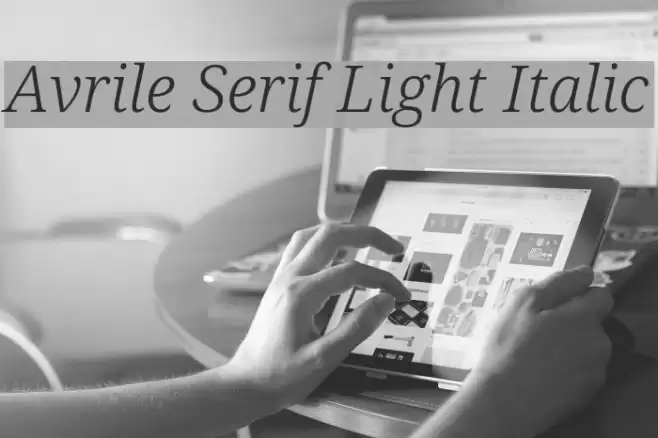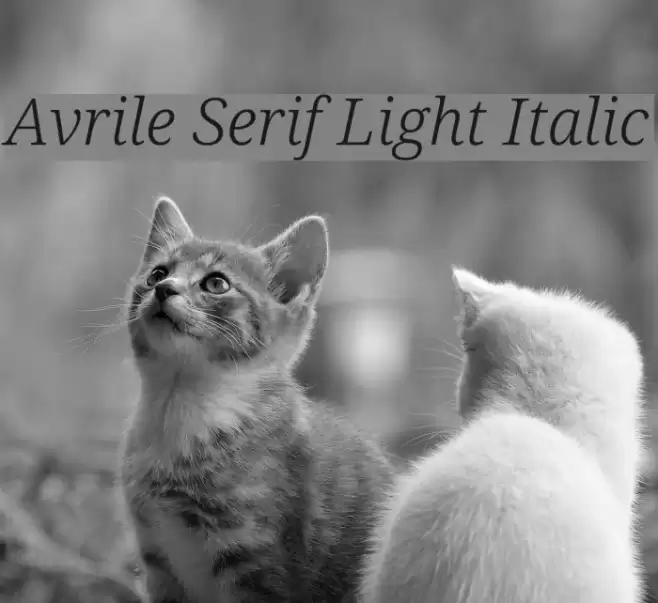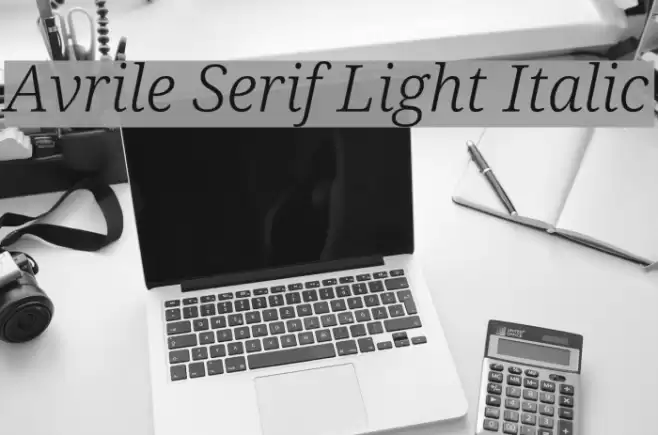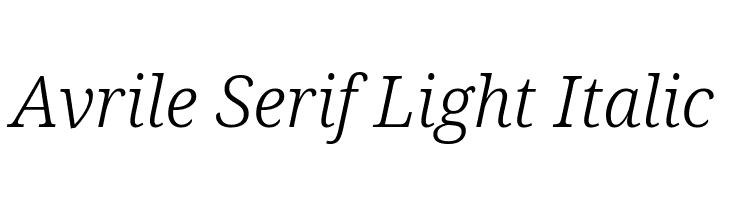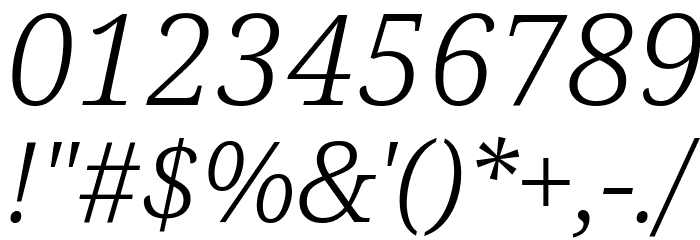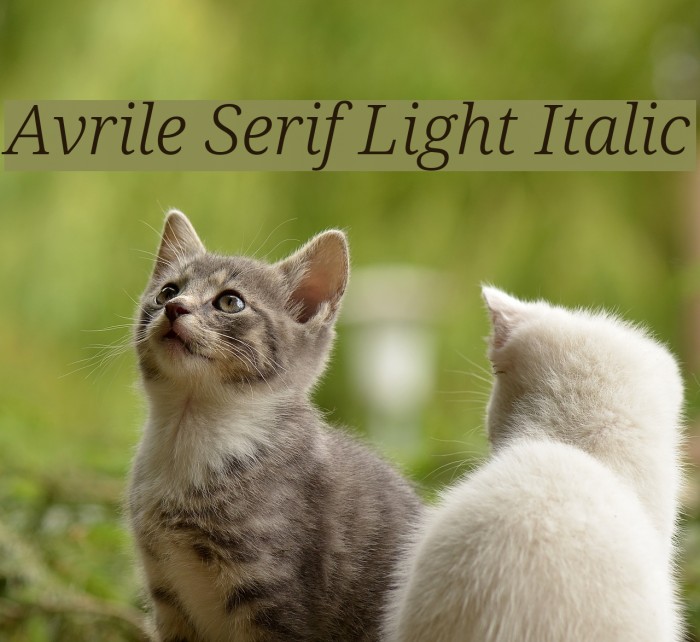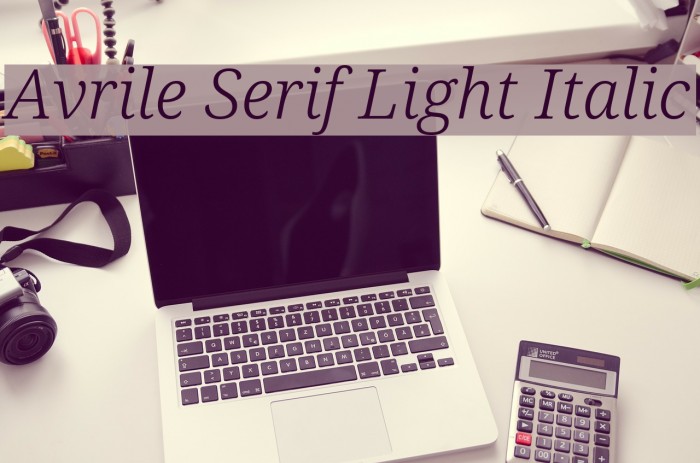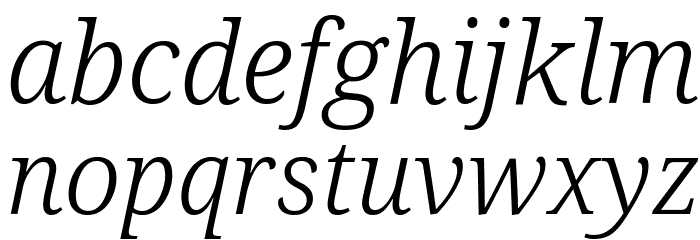
Avrile Serif Light Italic Font
Avrile Serif Light Italic Description
This elegant serif font features a light weight and italic style, offering a refined and sophisticated appearance. The characters are gracefully designed with subtle curves and delicate serifs, providing a classic yet modern feel. The font maintains a consistent stroke width, enhancing readability while adding a touch of elegance. Its italic nature gives it a dynamic and fluid look, making it suitable for various formal and creative applications. The numerals and special characters are crafted with the same attention to detail, ensuring uniformity across all glyphs.
A light, italic serif font with elegant curves and refined serifs from Uncategorized fonts.
- Proposed Projects: Ideal for wedding invitations, elegant branding, editorial design, and luxury packaging.
- Weight: Light
- Overall Style: Classic